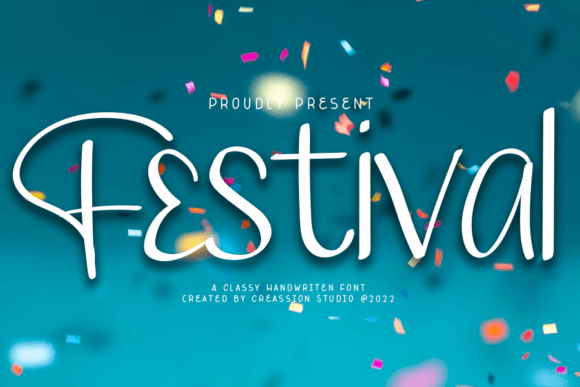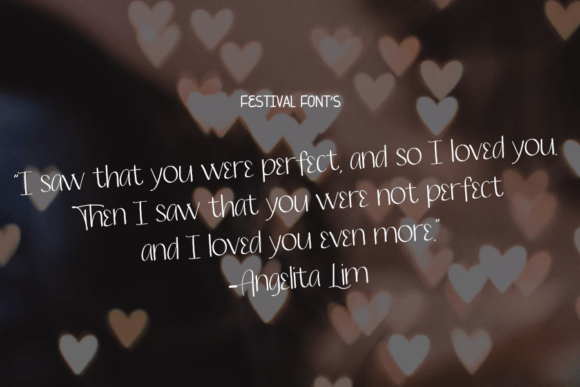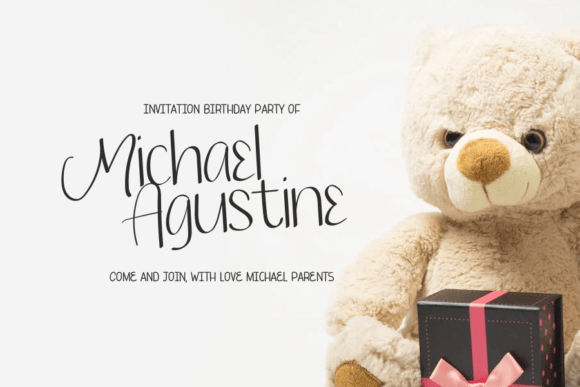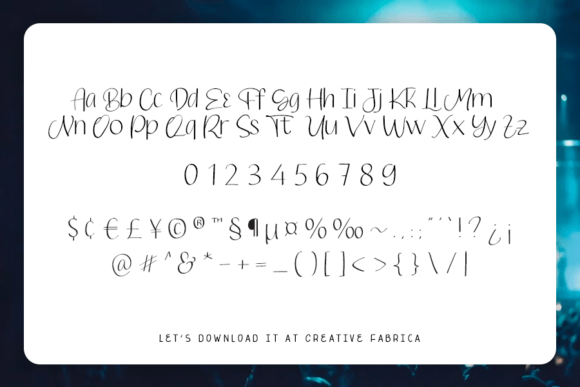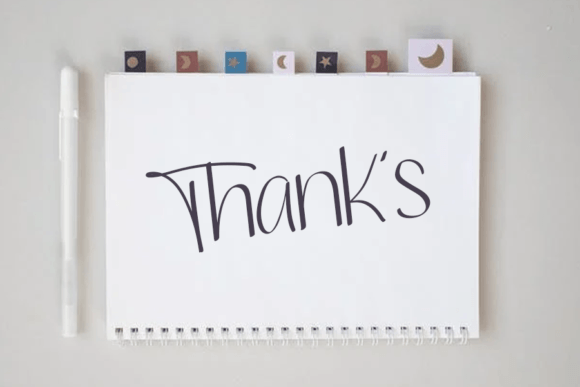
Festival Font
About Festival Font
**Festival Font: Charming Elegance for Romantic Designs**
Introducing “Festival,” a font that seamlessly combines charm and elegance, crafted to bring sophistication to your creative projects. This stunning font is perfect for a diverse range of applications, including wedding invitations, thank-you cards, quotes, greeting cards, logos, business cards, and any design that craves a romantic and handwritten touch.
**Charming and Elegant Aesthetics:**
Festival brings a delightful combination of charm and elegance to your designs. The carefully crafted handwritten strokes exude warmth and sophistication. Whether used for wedding invitations or business logos, Festival adds a layer of beauty that captivates.
**Perfect for Romantic Designs:**
Tailor-made for romantic designs, Festival is ideal for expressing love and affection. Its romantic handwritten touch is well-suited for wedding-related materials, love notes, and any project where you want to convey a sense of charm and intimacy. Festival transforms your designs into expressions of heartfelt emotion.
**Stunning Across Various Designs:**
Festival looks stunning across a variety of design platforms, making it versatile for different creative needs. Whether printed on wedding invitations or displayed digitally in a logo, Festival adapts seamlessly, adding a touch of romantic elegance to your visual expressions.
**Ideal for Expressive Designs:**
Choose Festival for expressive designs that evoke emotions. The font is not merely a collection of letters; it’s a medium for conveying gratitude, love, and appreciation. Let Festival be the language that speaks volumes in your designs.
Festival is more than just a font; it’s a romantic companion for your creative journey. Let it be the script that whispers love in every stroke, creating designs that not only look stunning but also convey heartfelt emotions. With Festival, your projects become an artful expression of love and elegance.